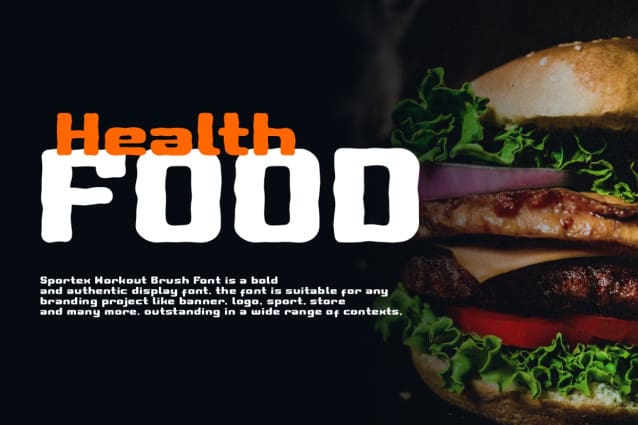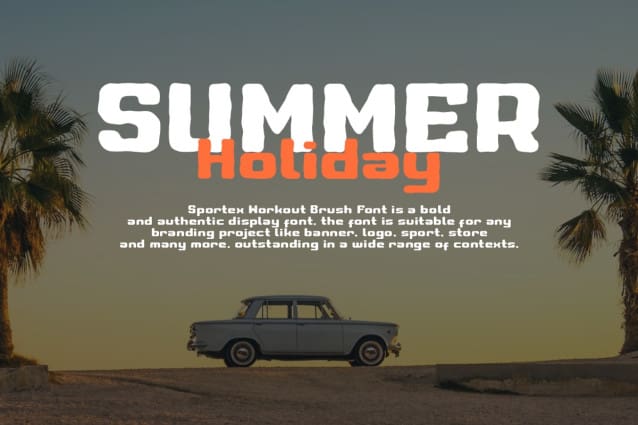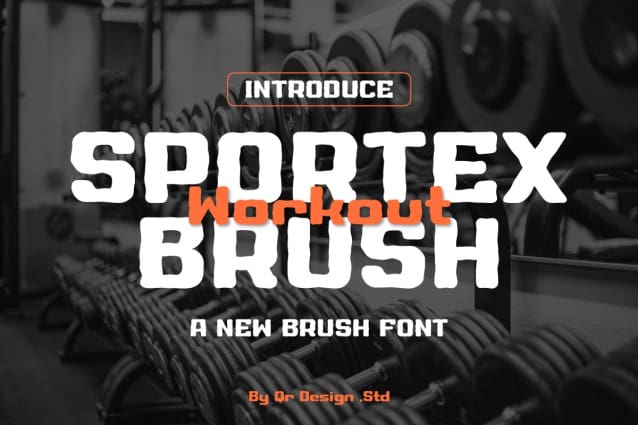
Sportex Workout Brush Font
Sportex Workout Brush Font is a bold and authentic display font. The font is suitable for any branding project like logo, sport, food, poster, and many more. Outstanding in a wide range of contexts.